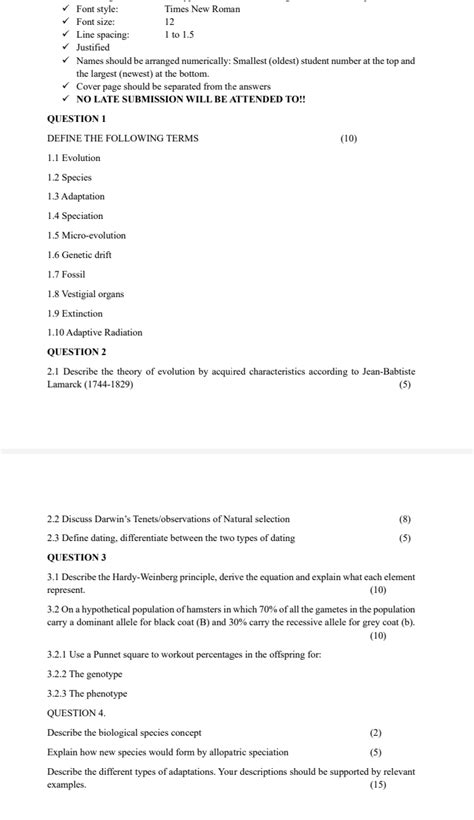
Times New Roman: Font Size 12 Guide
Hey guys, let’s dive into the world of typography, specifically focusing on the ever-popular Times New Roman font size 12 . It’s a classic for a reason, right? You see it everywhere – from school papers to important documents, and even some websites. But why is this particular combination so enduring? Well, it’s all about readability, professionalism, and a certain timeless appeal. When you’re aiming for clarity and a polished look, choosing the right font and size is absolutely crucial. Think about it: a giant, funky font might grab attention, but it won’t necessarily convey seriousness or ease of reading. On the flip side, a tiny, decorative font can be a real strain on the eyes. That’s where Times New Roman at size 12 comes in, hitting that sweet spot.
Why Times New Roman at Size 12 is a Go-To Choice
So, why Times New Roman font size 12 is practically the default setting for so many people? It boils down to a few key factors. First off, readability . Times New Roman is a serif font, meaning it has those little “feet” or decorative strokes at the ends of letters. These serifs are believed to help guide the eye along the line of text, making it easier and faster to read, especially in longer blocks of text. Think of it like a little runway for your eyes! Now, pair that with size 12. This size is generally considered optimal for body text in print and on screens. It’s large enough to be easily legible without being overwhelming, and it’s not so small that you’d need to squint. This combination creates a comfortable reading experience, which is paramount for any kind of content, whether it’s a novel, a report, or even an email. The history of Times New Roman also plays a role. Designed for The Times newspaper in London back in 1931, it was created to be legible and economical on newsprint. This historical context hints at its inherent design for clarity and efficiency, qualities that are still highly valued today. It’s a font that doesn’t try too hard to be trendy; instead, it focuses on doing its job exceptionally well: presenting information clearly. When you choose Times New Roman 12pt, you’re opting for a font that has a proven track record of being effective and professional, making it a safe and reliable choice for a wide range of applications. This makes it a favorite among students submitting essays, professionals drafting reports, and anyone who needs their words to be taken seriously.
Mastering the Use of Times New Roman 12pt
Alright, guys, let’s talk about how to really own the Times New Roman font size 12 game. It’s not just about slapping it on your document and calling it a day. There are some subtle nuances that can make a huge difference in how professional and readable your work appears. First off, consistency is king. Make sure you’re using size 12 for all your body text. Avoid the temptation to bump it up for emphasis or shrink it down to save space – this just looks sloppy. If you need to highlight something, use bold or italics instead. Speaking of emphasis, let’s talk about headings. While your body text should be a clean 12pt Times New Roman, your headings can be a bit different to guide the reader. Typically, you’d increase the font size for headings (e.g., 14pt or 16pt) and perhaps use bold. This creates a visual hierarchy, making it easy for readers to scan your document and understand its structure. Proper line spacing is another crucial element. Times New Roman 12pt often looks best with 1.5 or double spacing, especially for longer documents. Single-spaced text at this size can feel a bit cramped, while 1.5 or double spacing provides breathing room, making it much more comfortable to read. Don’t forget about margins! Standard 1-inch margins are usually perfect for this font size, ensuring there’s enough white space around your text. Now, let’s consider where you’re using it. For academic papers, Times New Roman 12pt with double spacing is often the standard. For business reports, you might stick with 12pt but perhaps use 1.5 spacing for a slightly more compact look, while still maintaining readability. And on the web? While Times New Roman is still used, sans-serif fonts like Arial or Calibri are often preferred for screen reading due to the way pixels render text. However, if you are using it on a website, ensure your line height is generous enough to compensate for any perceived density. The key takeaway here is to think about your audience and the medium. Times New Roman 12pt is a fantastic foundation, but how you build upon it with spacing, headings, and margins will truly elevate your document from just ‘readable’ to ‘professionally presented’. Experiment a little, but always keep that goal of clarity and ease of reading at the forefront. It’s all about making your content accessible and enjoyable for whoever is reading it, guys. Remember, a little attention to detail goes a long way in making your text shine.
When to Stick with Times New Roman Size 12
So, when exactly should you be reaching for Times New Roman font size 12 ? This is where knowing your audience and purpose really comes into play. Academic writing is probably the most common place you’ll find this combination mandated. Many universities and style guides (like MLA or Chicago) specify Times New Roman 12pt, often with double spacing, for essays, research papers, and theses. Why? Because it’s seen as neutral, professional, and easily printable. It doesn’t distract from the content, which is the main goal in academia. So, if you’re a student, get comfortable with this setup – it’s likely to be your best friend for a good chunk of your academic career! Another prime area is business and professional documents . Think résumés, cover letters, proposals, and reports. Times New Roman 12pt projects an image of seriousness, competence, and attention to detail. It tells the reader, “I’m presenting important information, and I want it to be taken seriously.” It’s a font that doesn’t scream for attention but rather speaks with quiet confidence. Formal correspondence , like official letters or legal documents, also benefits from the gravitas that Times New Roman 12pt provides. It’s a font that has a long-standing association with authority and tradition. On the flip side, you might want to avoid using Times New Roman 12pt for creative writing where you want a more modern or unique feel. For blog posts, web content, or anything aimed at a younger or more visually-oriented audience, other fonts might be more engaging. Similarly, for presentations, where readability from a distance is key, larger or bolder sans-serif fonts are often preferred. But for anything that requires a sense of formality, tradition, and clear, straightforward communication, Times New Roman font size 12 is still a solid, reliable, and highly effective choice. It’s the workhorse of the font world for a reason, guys, and understanding its strengths will help you make the best typographic decisions for your projects. It’s a classic that continues to perform, ensuring your message is delivered clearly and professionally.
Times New Roman vs. Other Fonts at Size 12
Let’s be real, guys, the world of fonts is vast! So, why does Times New Roman font size 12 often get the nod over other options? It’s all about context and perceived characteristics. When you compare Times New Roman 12pt to a popular sans-serif like Arial 12pt , the difference is pretty obvious. Arial, being sans-serif, lacks those little feet (serifs). On screens, especially at smaller sizes or lower resolutions, sans-serif fonts can sometimes appear cleaner and sharper. However, for printed materials or longer reading sessions, the serifs on Times New Roman are often considered to aid readability by guiding the eye. Many people find Times New Roman 12pt to feel more traditional and formal, while Arial 12pt can feel more modern and straightforward, perhaps even a bit plain to some. Then you have other serif fonts. Consider Georgia 12pt . Georgia was designed specifically for screen readability, so while it’s a serif font like Times New Roman, it’s generally a bit wider and has a more robust appearance, which can make it quite comfortable to read on screen. However, it might not have the same level of perceived formality as Times New Roman in certain contexts. Or maybe Garamond 12pt ? Garamond is another classic serif font, often considered more elegant and refined than Times New Roman. It tends to have a more delicate appearance and can sometimes require slightly larger spacing to achieve the same level of readability as Times New Roman 12pt. In some situations, Garamond might be seen as more sophisticated, but it can also appear smaller than Times New Roman at the same point size, which might not be ideal if legibility is the absolute top priority. Calibri 12pt , a sans-serif font that replaced Times New Roman as Microsoft Word’s default, is another popular choice. It’s clean, modern, and generally very readable on screen. However, it lacks the traditional weight and formality often associated with Times New Roman, making it less suitable for contexts demanding strict adherence to classic professional standards. So, while other fonts have their strengths – maybe better on-screen clarity, a more modern vibe, or a touch more elegance – Times New Roman font size 12 maintains its popularity because it offers a balanced combination of readability, perceived professionalism, and a sense of established tradition that’s hard to beat for many common applications. It’s the reliable choice that often just works , especially when you need your content to look polished and serious without any fuss. It’s the default for a reason, and understanding these comparisons helps you appreciate why it remains a go-to option for so many!
Conclusion: The Enduring Appeal of Times New Roman 12pt
Ultimately, guys, the Times New Roman font size 12 isn’t just a default setting; it’s a testament to the power of clear, effective communication. Its enduring appeal lies in its perfect balance of readability, professionalism, and timeless design. For decades, it has served as the standard-bearer for academic papers, business documents, and formal correspondence, ensuring that information is conveyed with clarity and authority. While the digital landscape encourages experimentation with newer, often sans-serif fonts, Times New Roman 12pt holds its ground, particularly in print and in contexts where tradition and a serious tone are paramount. Its serifs guide the reader’s eye, making long passages of text less daunting, and the 12-point size strikes an optimal chord between legibility and page efficiency. Mastering its use involves thoughtful attention to spacing, margins, and hierarchical typography, transforming a simple font choice into a polished presentation. So, whether you’re a student facing a daunting essay, a professional crafting a crucial report, or simply someone who appreciates the elegance of well-presented text, Times New Roman font size 12 remains a powerful and reliable ally. It’s a classic that continues to prove its worth, ensuring your message is not only seen but also understood and respected. Keep it in your typographic toolkit, because this font isn’t going anywhere soon! It’s the solid, dependable choice that consistently delivers.